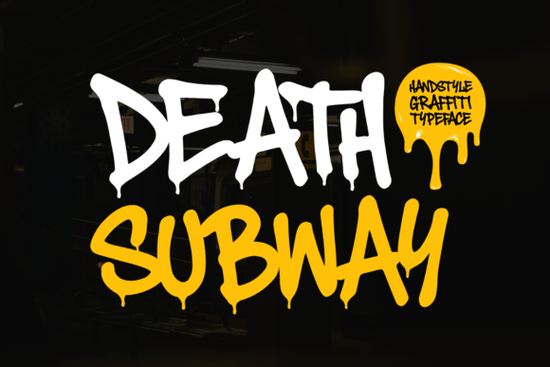
If you're working on a design that needs to feel bold, raw, and unmistakably urban, the Death Subway Graffiti Font might be exactly what your project’s missing. Created with real street art energy in mind, this typeface brings the spirit of subway tags and alleyway murals straight into your digital or print work without needing a spray can.
What makes Death Subway stand out is its dual personality. It comes in two distinct styles: Clean and Drip. The Clean version keeps things sharp and readable while still holding onto that hand-drawn edge perfect if you’re designing logos, apparel, or social graphics that need clarity but don’t want to lose attitude. The Drip style leans fully into the graffiti vibe, with ink-like drips trailing from letters to mimic fresh paint running down concrete. Together, they give you flexibility whether you’re crafting gritty event flyers or sleek streetwear branding.
Who is this font actually for?
This isn’t just for graffiti artists. Print-on-demand sellers can use it to create eye-catching t-shirt designs that resonate with youth culture. Small businesses launching urban-themed product lines think skate shops, music labels, or coffee roasters with an edgy identity will find it adds instant character. Even hobbyists making stickers, zines, or album covers can tap into its expressive flow without needing illustration skills.
Unlike overly polished display fonts, Death Subway embraces imperfection. Each letterform has slight variations in stroke width and angle, mimicking how real markers skip or press harder on rough surfaces. That organic rhythm helps your text feel alive rather than mechanically generated.
How does it compare to other expressive display fonts?
If you’ve used playful options like the Sugar Cloud Font, you know soft curves can charm but they won’t deliver rebellion. Similarly, the retro-inspired Old Game Font nails nostalgia but lacks street grit. For classic athletic vibes, the Classic Varsity Font works great, yet it’s structured and clean by nature.
Where Death Subway really finds its niche is alongside fonts that lean into texture and motion like the Slime Drip Font, which also uses fluid distortion for impact. But while Slime Drip feels more cartoonish or surreal, Death Subway stays grounded in real-world graffiti tradition. You can even pair them thoughtfully: use Death Subway for headlines and Slime Drip for accents when you want layered visual energy.
Where should you use it?
This font thrives in contexts where authenticity matters:
- Streetwear and merch design – Hoodies, caps, and tote bags benefit from its hand-done look.
- Music and event promotion – Album art, gig posters, or festival branding gain urgency and edge.
- Social media visuals – Quotes, announcements, or reels that need to cut through the noise.
- Stickers and zines – DIY projects feel more genuine with typography that echoes underground culture.
It scales well too whether printed large on a wall decal or sized down for a phone case, the letterforms retain their personality. Just avoid using it for body text; it’s built for display, not readability at small sizes.
- ✅ Do you need a font with strong visual attitude not just decoration?
- ✅ Are you designing for short-form text (headlines, logos, slogans)?
- ✅ Does your audience connect with urban, rebellious, or DIY aesthetics?
- ✅ Will you use it across both print and digital formats?